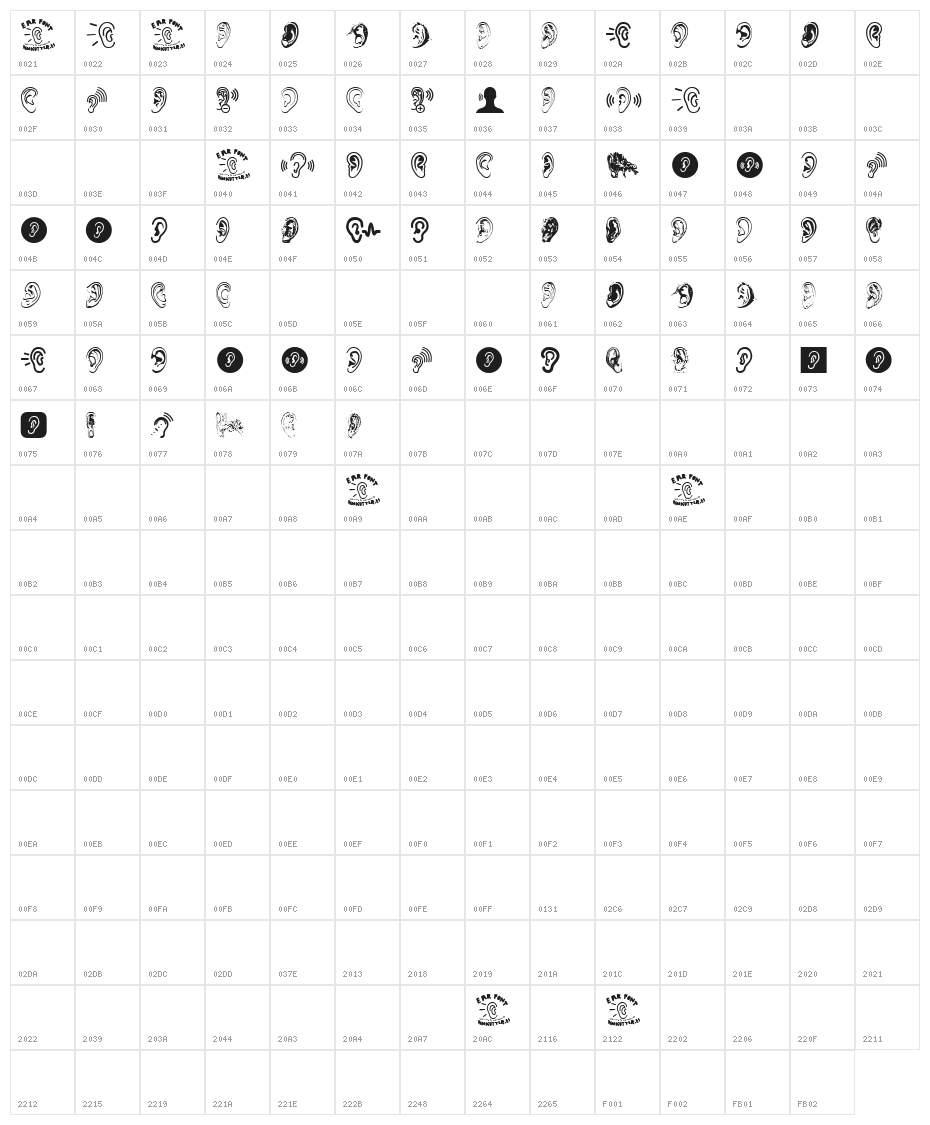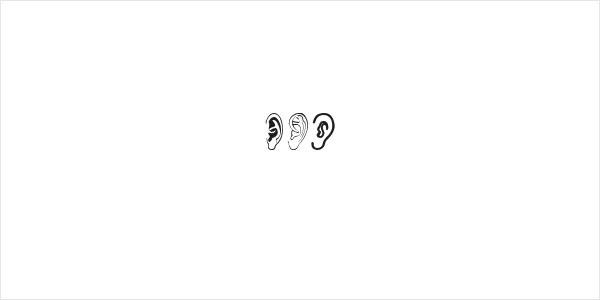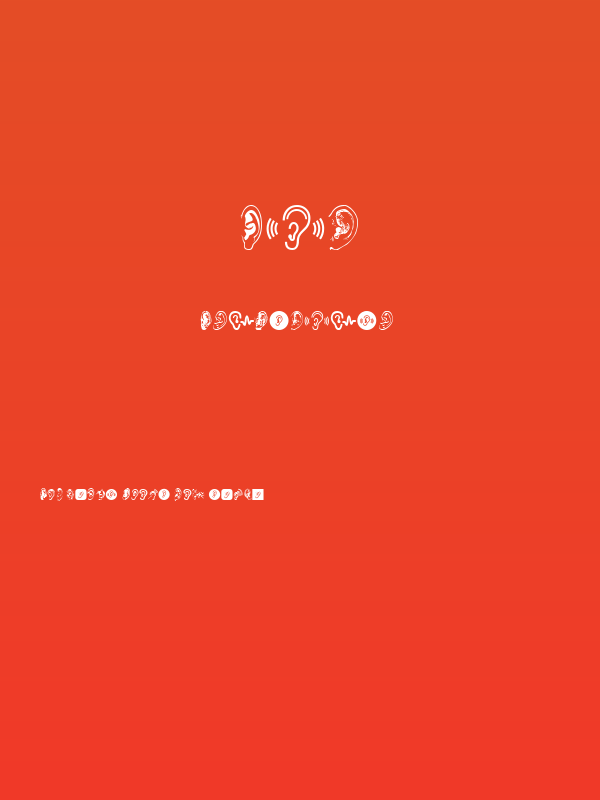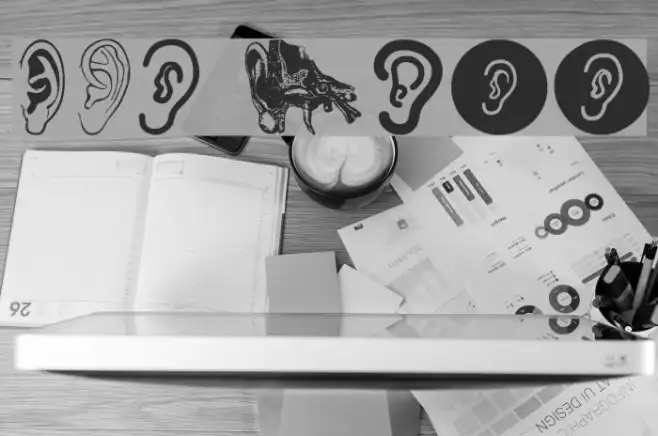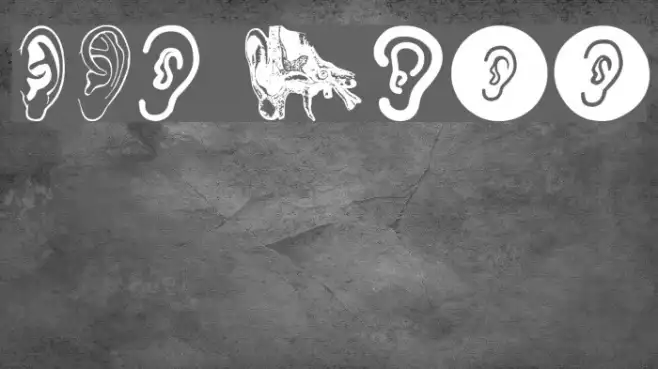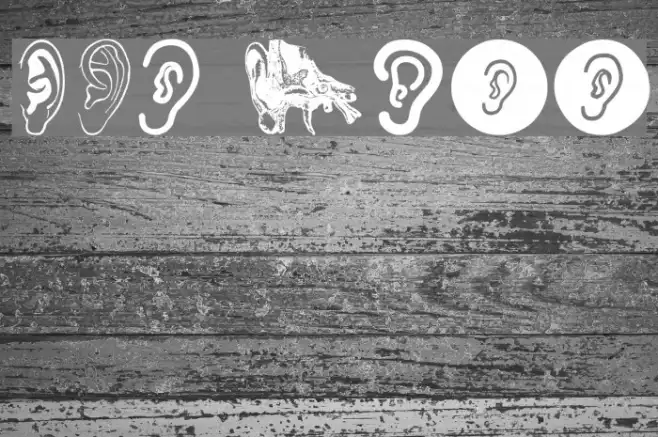
Ear Font
Ear Description
A decorative display font composed entirely of various ear illustrations, including stylized, realistic, and iconographic representations, some with sound wave motifs and others with bold outlines or filled backgrounds.
| Overall Style | Decorative, Playful, Illustrative |
| Use Case | Logos, Posters, Headlines, Themed events |
| Proposed Projects | Children’s books, health awareness campaigns, posters, novelty branding, educational materials. |